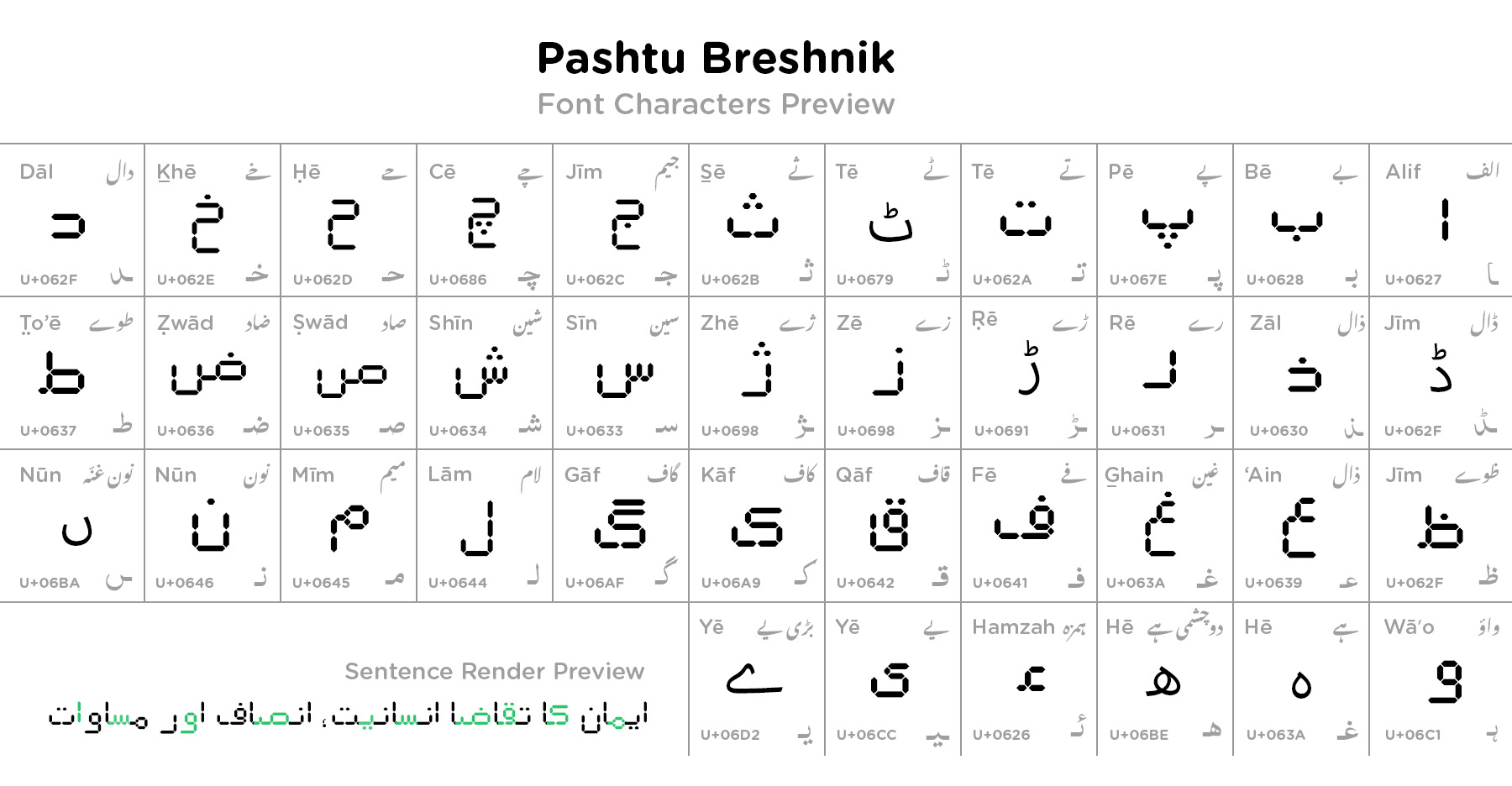
Pashtu Breshnik, designed by Abdur Rauf Mahsood and released on May 25, 2011, is a modern, bold, and geometrical font that draws inspiration from the Naskh script, with evident influences from digital clocks and calculators. Its thick, wide letters feature soft corners and terminals, giving them a blocky appearance composed of interconnected small rectangular blocks of varying sizes. With 561 characters and 591 glyphs, it offers enough room to fulfill various design needs. Moreover, it offers extensive language support, including Arabic, Latin, Greek, Tibetan, Urdu, and more to cater to multilingual projects across different platforms. The font’s distinct appearance makes it best suited for short texts, as prolonged reading may become challenging. However, its high legibility on screens ensures clarity and readability for digital content. The letters maintain a thick and constant thickness throughout, with impactful and strong strokes contributing to their bold presence.